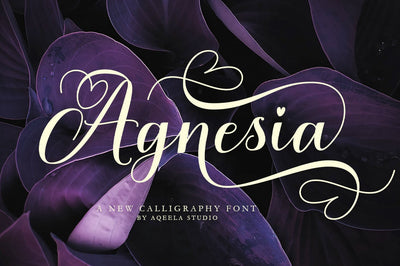
Agnesia
Agnesia is a fancy and romantic script font. This font is neatly crafted and highly detailed. Whatever the topic, this font will be a wonderful asset to your font library, as it has the potential to enhance any creation.